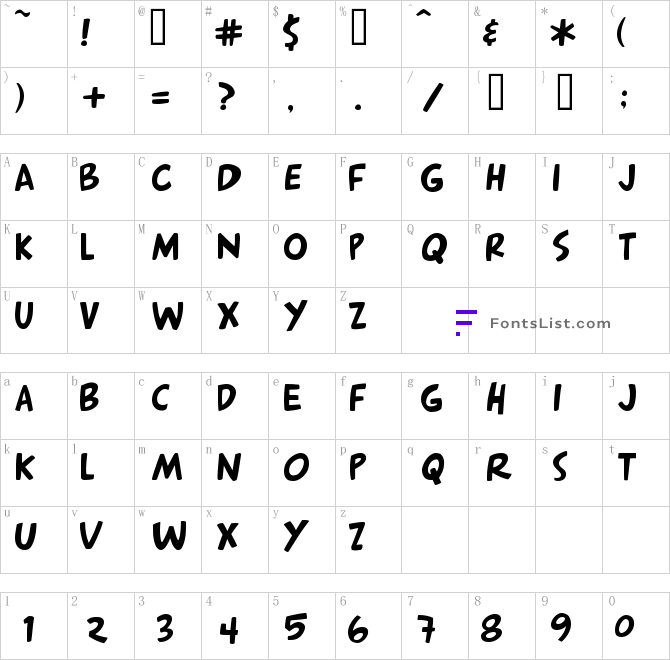
- Font Name:Arnold 2.1
Arnold-21-copy-1-.ttf is a very beautiful artistic font, Arnold-21-copy-1-.ttf is widely used in the design and printing of various books and pictures,Arnold-21-copy-1-.ttf has a strong visual impact,Arnold-21-copy-1-.ttf is a commonly used font in newspapers, magazines and books, and is used in posters, e-commerce Poster design, store design, logo design, font design and other fields.Arnold-21-copy-1-.